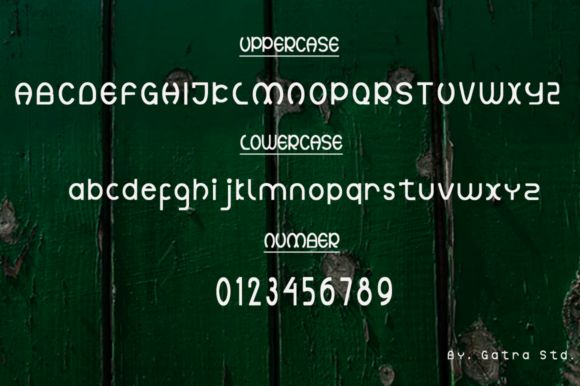
Introduction to Botswana Font
Remember that moment when you’re brainstorming ideas for a new creative project and everything just seems to be missing that perfect touch? You’ve got the concept, the colors, and the vision, but something’s holding you back from making it truly stand out. This is where a great design resource can make all the difference – and that’s exactly where the Botswana Font comes in.
This modern sans serif font is more than just a pretty face; it’s a versatile and high-quality tool that can elevate any project to the next level. With its clean lines and transparent background, the Botswana Font is perfect for designers looking to add a touch of sophistication to their work. Whether you’re working on a logo, a brochure, or a website, this font is sure to be a valuable addition to your design arsenal.
Key Features of Botswana Font
- High-quality design resource suitable for various creative projects, including logos, branding, and print materials.
- Unique and elegant font style with a transparent background, making it ideal for backgrounds, overlays, and other design elements.
- Perfect for designers and artists looking for a sophisticated and modern font to elevate their work.
- Designed to be versatile and adaptable, making it an excellent addition to any design resource library.
Honest Review: Botswana Font
- Unique and elegant design style that adds a touch of sophistication to any project
- High-quality glyphs that are well-rendered and detailed
However, there are a few limitations to consider ⚠️
- Limited language support, making it less suitable for multilingual projects
- No bold or italic font variations available, which may limit its use in certain design scenarios
Overall, the Botswana Font is a solid choice for designers seeking a high-quality, elegant font for their creative projects. While it may have some limitations, its unique design style and transparent background option make it a valuable addition to any design resource library.
Tips for Getting the Most Out of Botswana Font
Use the Botswana Font to add a touch of elegance to your designs, and take advantage of its transparent background to create visually appealing compositions.
The Botswana Font is perfect for a variety of creative projects, including wedding invitations, business cards, and branding materials.